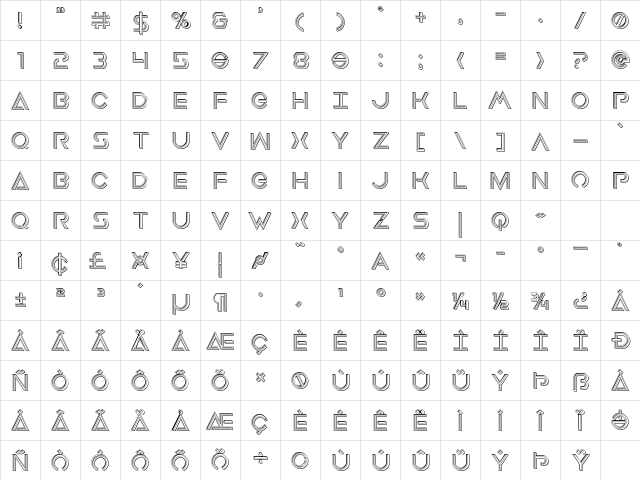
Earth Orbiter Engraved Regular
Earth Orbiter Engraved Family
Design Context for Earth Orbiter Engraved
Earth Orbiter Engraved is built around its visual character rather than neutral utility - its distinctive forms are designed to make an impression at display sizes.
Font Pairing: Pair with a clean neutral sans-serif for body copy to let Earth Orbiter Engraved's character lead without overwhelming the composition.
Pro Tip: Use Earth Orbiter Engraved exclusively at display sizes - it was designed to be seen, not read at length. Let a neutral companion handle body copy.